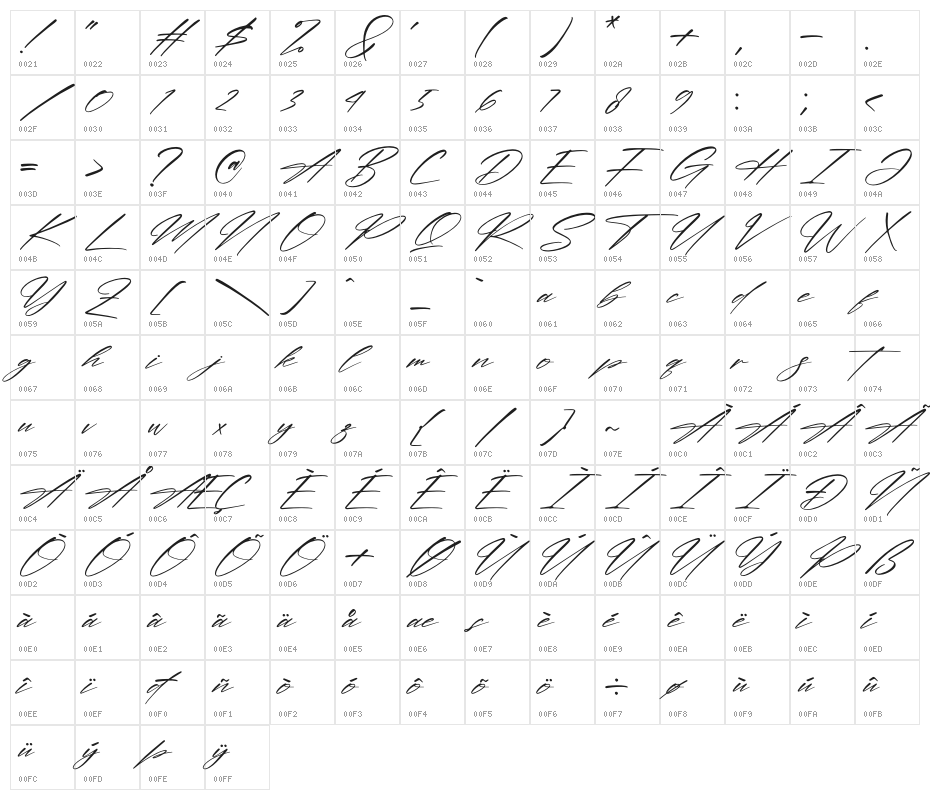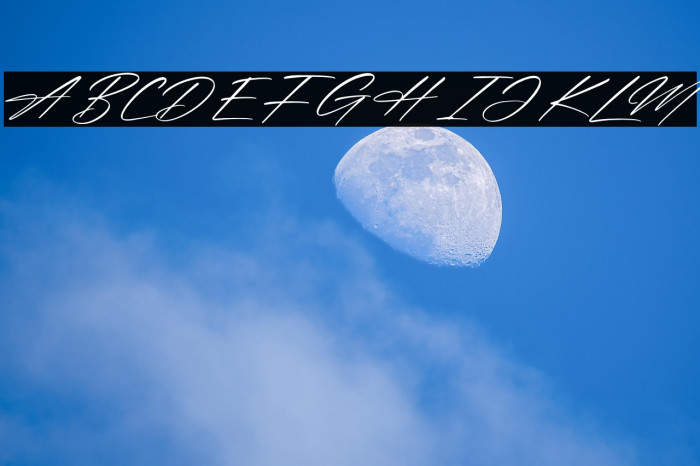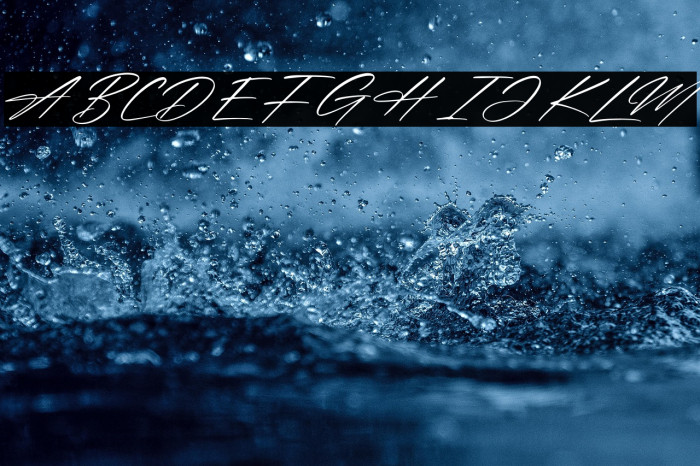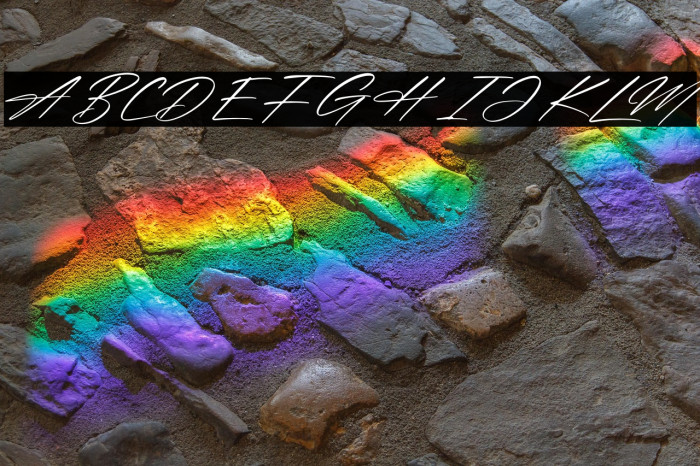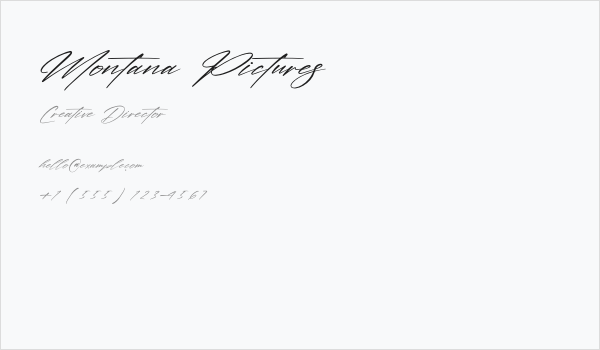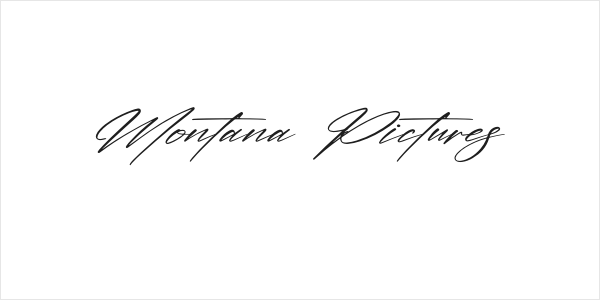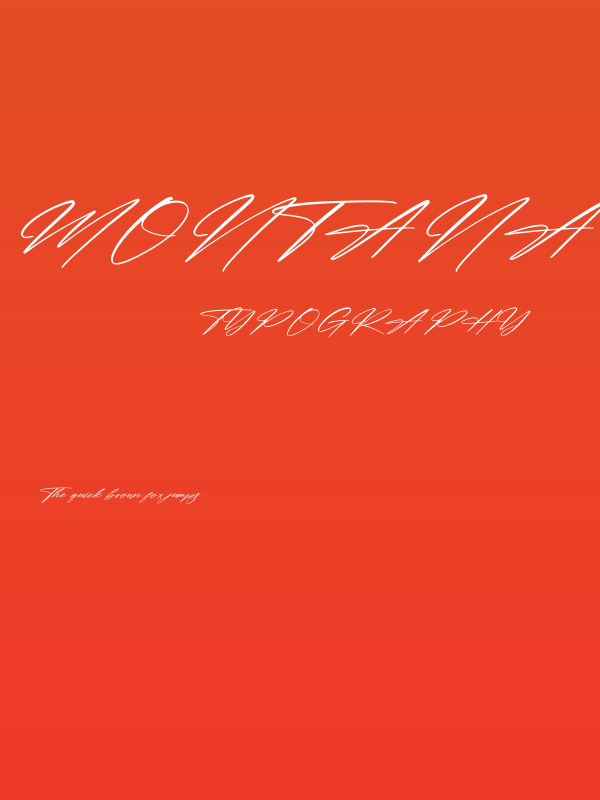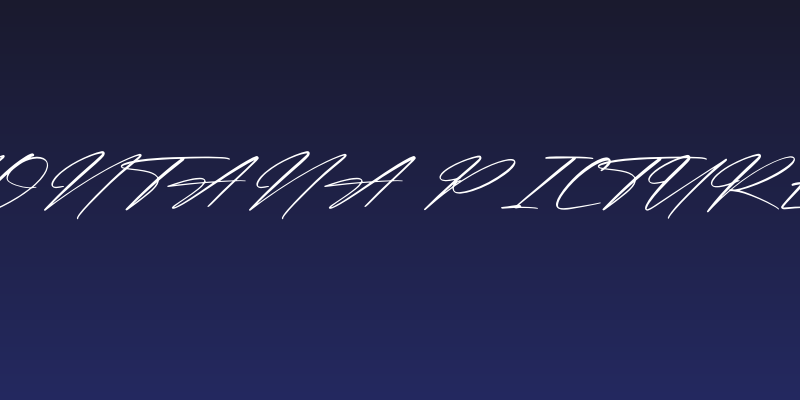
Montana Pictures Font
Montana Pictures Description
This font features an elegant and flowing script style, characterized by its cursive, handwritten appearance. The letters are connected in a fluid manner, creating a sense of continuity and grace. The uppercase letters are slightly more elaborate, with sweeping lines and loops, while the lowercase letters maintain a consistent and smooth flow. The numbers and special characters are designed to match the overall aesthetic, with similar curves and strokes. This font exudes sophistication and is perfect for projects that require a personal touch.
| Overall Style | Elegant, Sophisticated |
| Proposed Projects | Ideal for wedding invitations, greeting cards, personal branding, and elegant logos. |